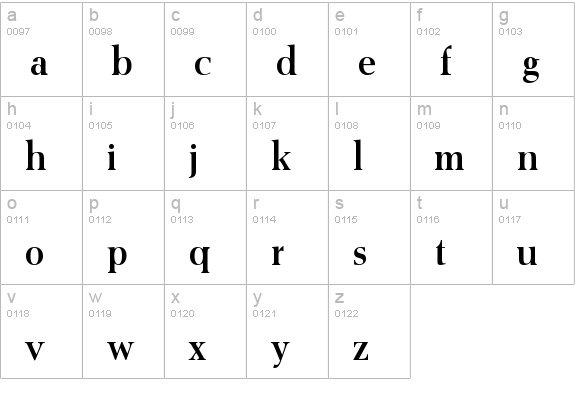
I772-Roman-Bold is a strong, high-contrast variant in the I772 typeface family \xE2\x80\x94 well suited to headlines, attention-grabbing titles, and strong calls-to-action.
I772-Roman-Bold font is a versatile and stylish typeface that embodies the classic elegance of Roman lettering. Its bold and strong design makes it perfect for headlines, titles, and other display purposes, adding a touch of sophistication to any project. This font is free to download at FontsMarket.com, where you can easily access and use it for both personal and commercial projects. With its timeless appeal and modern twist, I772-Roman-Bold font is a must-have addition to your font collection.